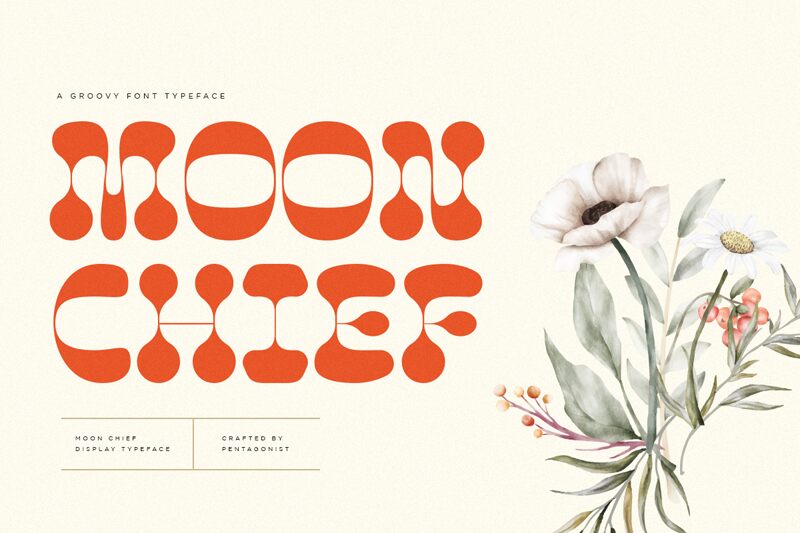
Moonchief font by Pentagonistudio is a groovy bold display font with psychedelic aesthetics and a retro influence. It has that eye-catching whimsical appeal that remains all over its organic shapes and bulbous forms. Legible with delicately created characters, Moonchief can elevate your designs on a whole new level.
This free font would thrive in movie titles, big wall stickers, comic magazines covers, oldies posters, small banners, typography compositions, logo creations for fancy brands or elegant ones. Or you can just use it to focus on small portions of the typography such as initials or highlighted paragraphs among others.